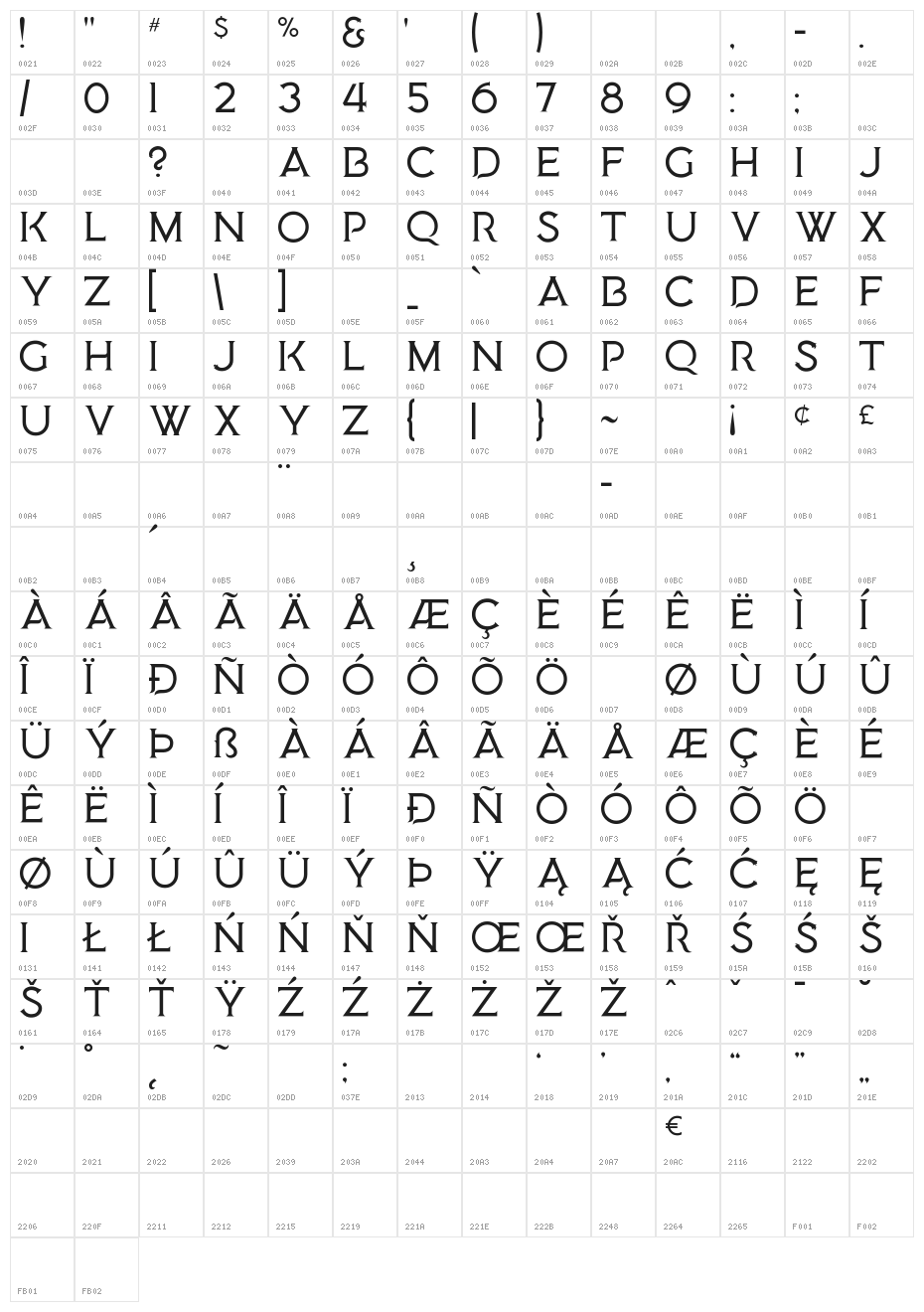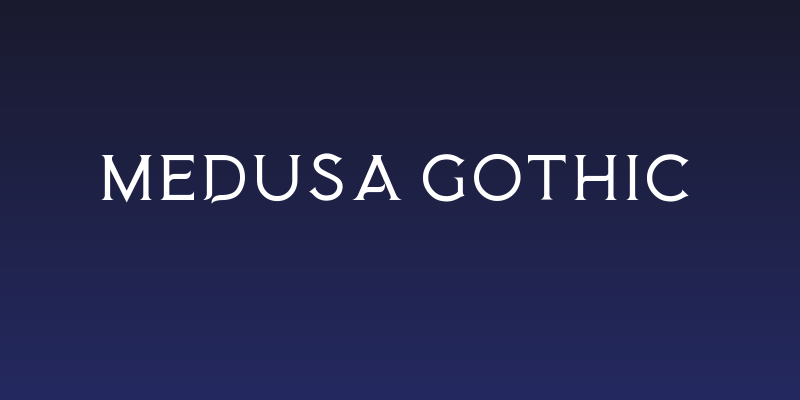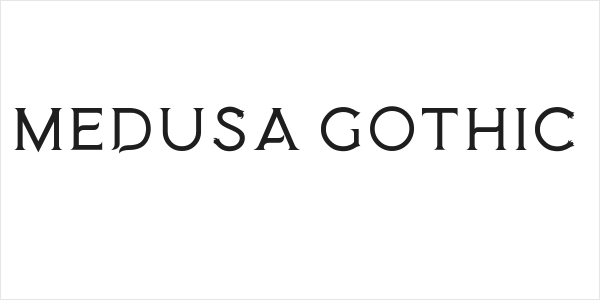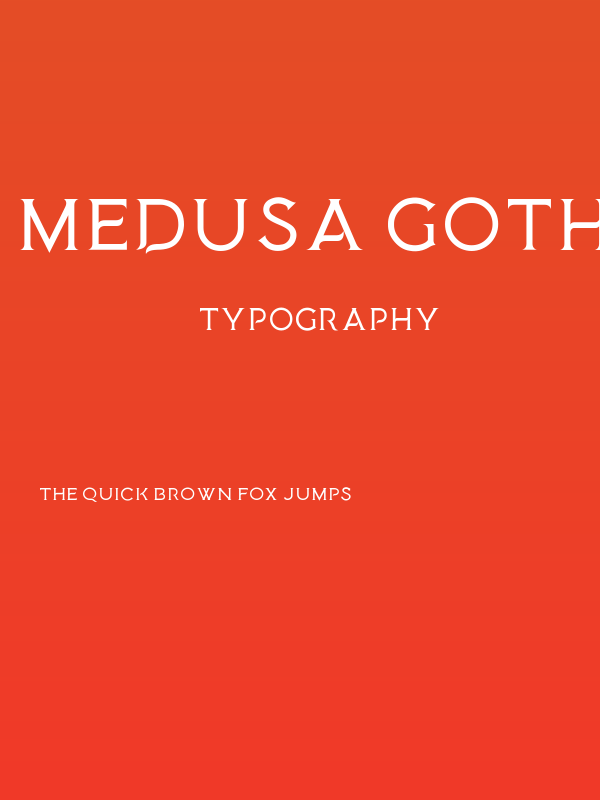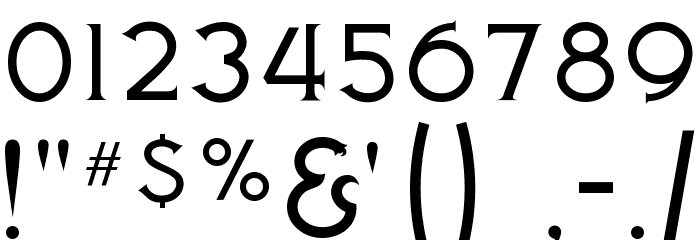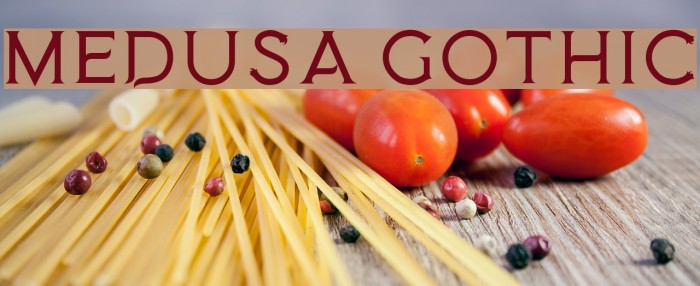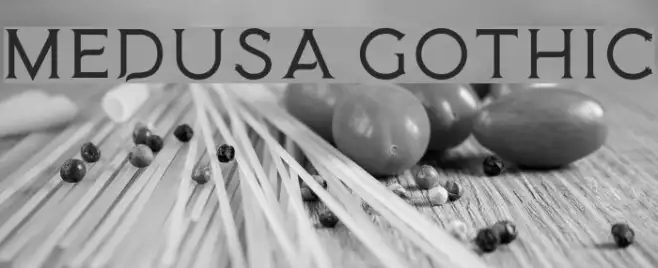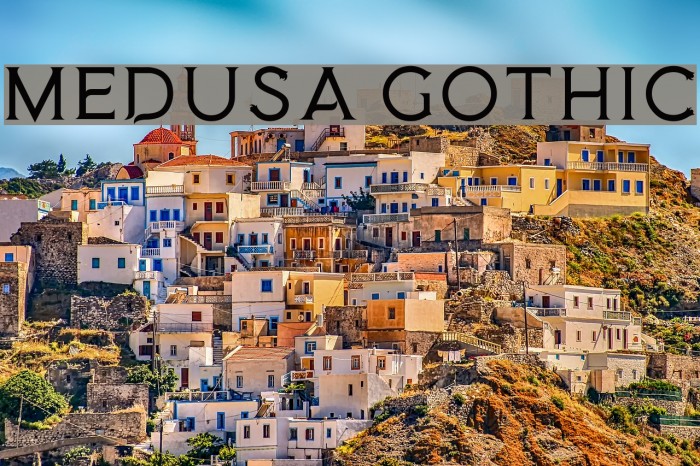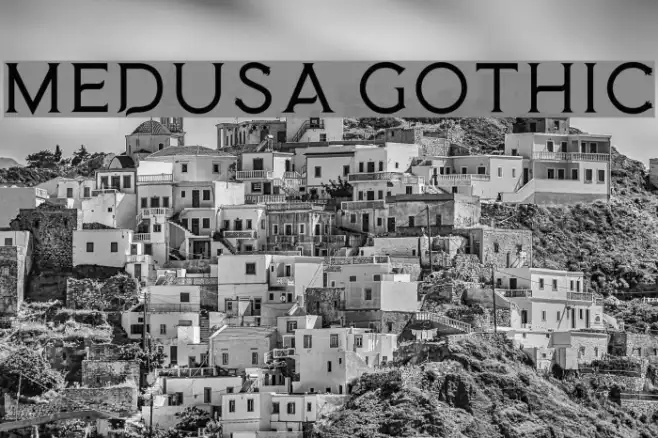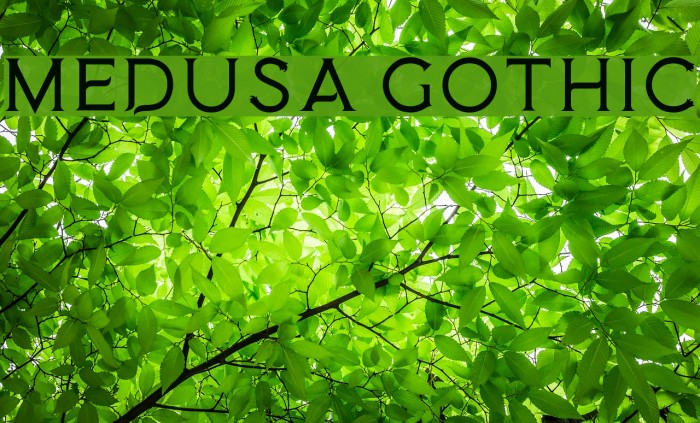
Medusa Gothic Font
Medusa Gothic Description
This font features a striking and bold design with a gothic influence, characterized by sharp, angular serifs and a strong presence. The uppercase letters exhibit a traditional yet edgy style, while the lowercase letters maintain a consistent aesthetic that complements the uppercase. Numbers are designed with a similar boldness, ensuring readability and impact. Special characters are crafted with attention to detail, enhancing the overall gothic theme. The font's unique style makes it suitable for projects that require a dramatic and eye-catching typeface.
| Overall Style | Gothic, Decorative |
| Proposed Projects | Ideal for branding, posters, book covers, and any design requiring a bold, gothic aesthetic. |